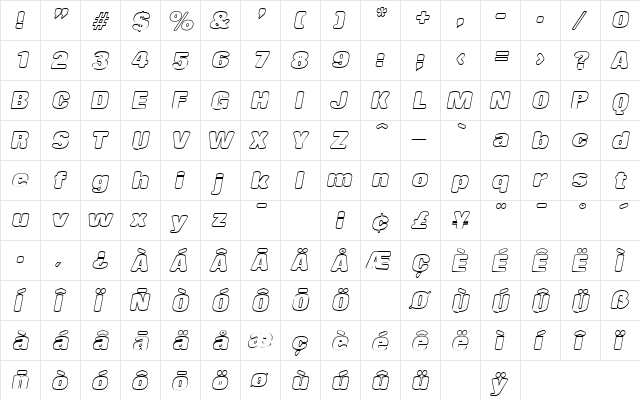
RollingOutline Italic
Design Context for RollingOutline Typeface
RollingOutline brings ornamental detail and strong personality to headlines and identities, where visual impact matters more than quiet functionality. Its italic angle brings a sense of urgency and motion to the letterforms.
Font Pairing: Pair with a clean neutral sans-serif for body copy to let RollingOutline's character lead without overwhelming the composition.
Pro Tip: Use RollingOutline exclusively at display sizes — it was designed to be seen, not read at length. Let a neutral companion handle body copy.